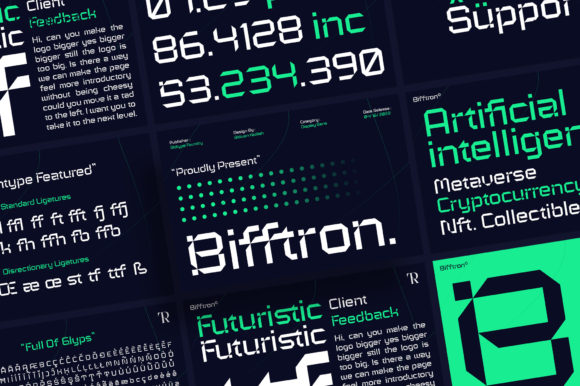
Bifftron Font: A Futuristic Modern Sans Serif with a Geometric Touch
In the world of typography, fonts play a crucial role in conveying messages, expressing emotions, and creating visual identities. With the ever-evolving design landscape, font enthusiasts and designers are constantly on the lookout for innovative and versatile typefaces that can elevate their designs. One such font that has gained significant attention in recent times is Bifftron Font, a futuristic modern sans serif with a geometric touch.
What is Bifftron Font?
Bifftron Font is a display font designed for creative professionals who seek to make a statement in their designs. This modern sans serif font boasts a unique geometric touch, making it perfect for logo design, posters, and other visual projects that require a bold and futuristic look. With its sleek lines, precise curves, and carefully crafted letterforms, Bifftron Font is sure to turn heads and leave a lasting impression.
Key Features of Bifftron Font
- Geometric Touch: Bifftron Font’s geometric touch sets it apart from other sans serif fonts. Its carefully crafted letterforms feature precise lines, curves, and angles, giving it a futuristic and modern look.
- PUA Encoded: Bifftron Font is PUA (Private Use Area) encoded, which means that users can access a wide range of glyphs and ligatures with ease. This feature makes it easy to create unique and creative designs.
- Display Font: Bifftron Font is designed as a display font, making it perfect for large-scale designs such as posters, logos, and billboards.
- Versatile: Bifftron Font is highly versatile and can be used for a wide range of design projects, from branding and advertising to packaging and digital media.
Uses of Bifftron Font
Bifftron Font’s unique features make it an excellent choice for various design projects. Here are some of the most popular uses of Bifftron Font:
Logo Design
Bifftron Font’s geometric touch and modern look make it an excellent choice for logo design. Its sleek lines and precise curves create a professional and futuristic look that can help businesses stand out in a crowded market.
Poster Design
Bifftron Font’s display font characteristics make it perfect for poster design. Its large-scale letterforms and carefully crafted glyphs can help create eye-catching posters that grab attention and communicate messages effectively.
Branding and Advertising
Bifftron Font’s versatility and modern look make it an excellent choice for branding and advertising projects. Its geometric touch and precise lines can help create a professional and cohesive visual identity for businesses.
Benefits of Using Bifftron Font
Using Bifftron Font in design projects offers several benefits, including:
Unique Look
Bifftron Font’s geometric touch and modern look create a unique visual identity that can help businesses stand out in a crowded market.
Versatility
Bifftron Font’s versatility makes it suitable for a wide range of design projects, from branding and advertising to packaging and digital media.
Easy to Use
Bifftron Font is PUA encoded, making it easy to access a wide range of glyphs and ligatures. This feature saves designers time and effort, allowing them to focus on creative aspects of design.
In conclusion, Bifftron Font is a futuristic modern sans serif with a geometric touch that offers a unique and versatile solution for designers. Its display font characteristics, PUA encoding, and geometric touch make it perfect for logo design, posters, and other visual projects that require a bold and futuristic look. With its ease of use, versatility, and unique look, Bifftron Font is an excellent choice for designers seeking to elevate their designs and create a lasting impression.